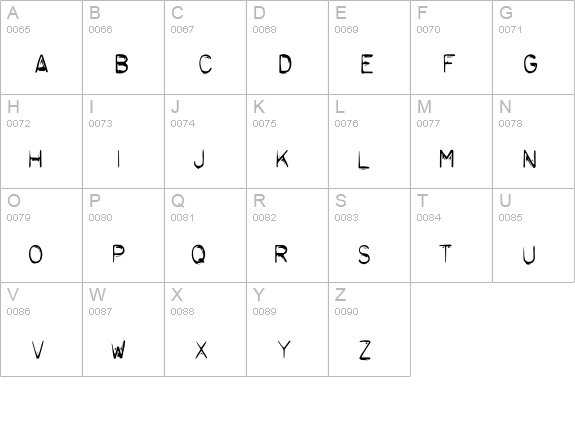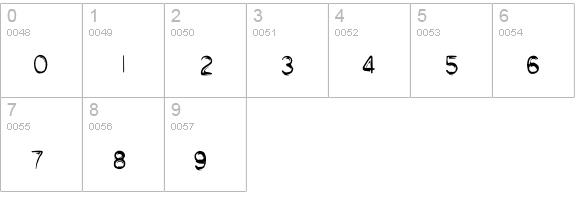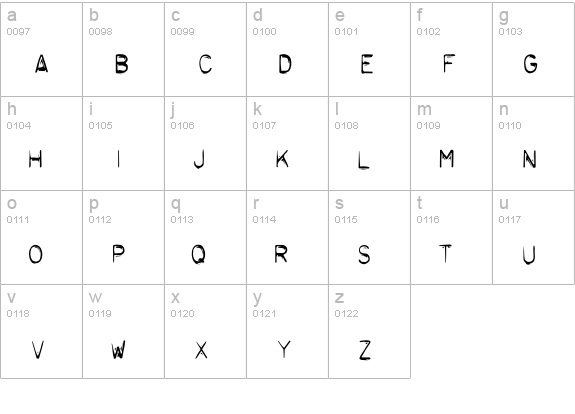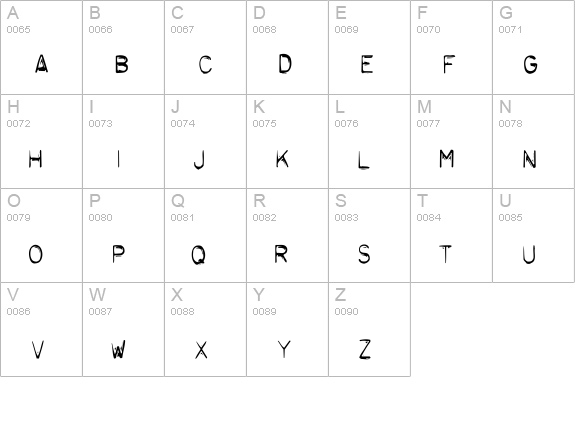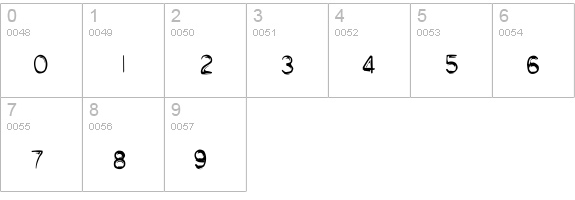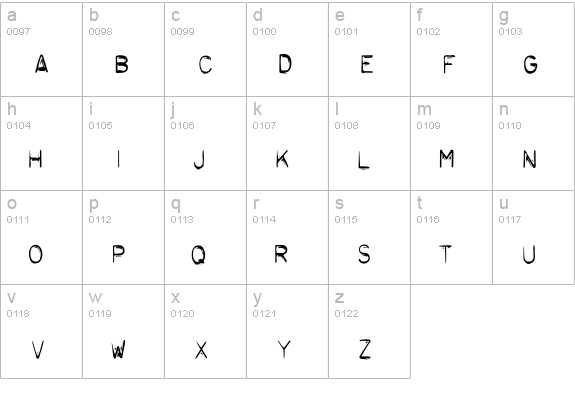
Typo-Positive Font Details
Introducing Typo-Positive, a font that will breathe new life into your designs with its modern and vibrant style. With its clean lines and playful curves, this font exudes positivity and optimism, making it the perfect choice for projects that aim to make a bold statement. Typo-Positive is not only visually appealing but also highly versatile. Whether you're designing a logo, creating a poster, or crafting a social media graphic, this font will effortlessly elevate your work to new heights. Its well-balanced letterforms and carefully crafted details ensure readability and legibility, even at small sizes. One of the best things about Typo-Positive is that it is available free of charge. Yes, you read that right. This incredible font can be freely downloaded at FontsMarket.com, making it accessible to designers of all levels. With just a few clicks, you can bring a touch of positivity and creativity to your designs without breaking the bank. But don't let its affordability fool you. Typo-Positive is a high-quality font that rivals paid options. Its extensive character set includes uppercase and lowercase letters, numerals, punctuation, and multilingual support, ensuring that you have everything you need to bring your ideas to life. So why wait? Don't miss out on the opportunity to enhance your designs with the Typo-Positive font. Download it for free at FontsMarket.com today and let your creativity soar.